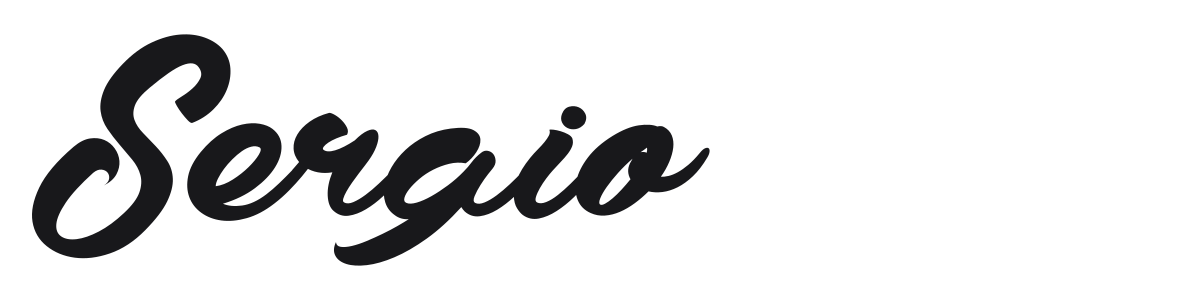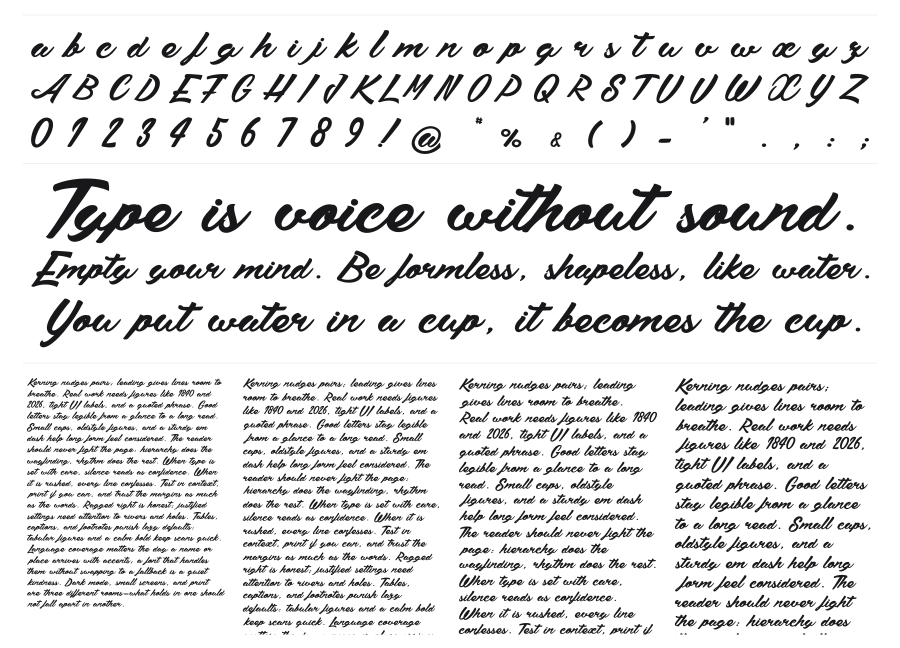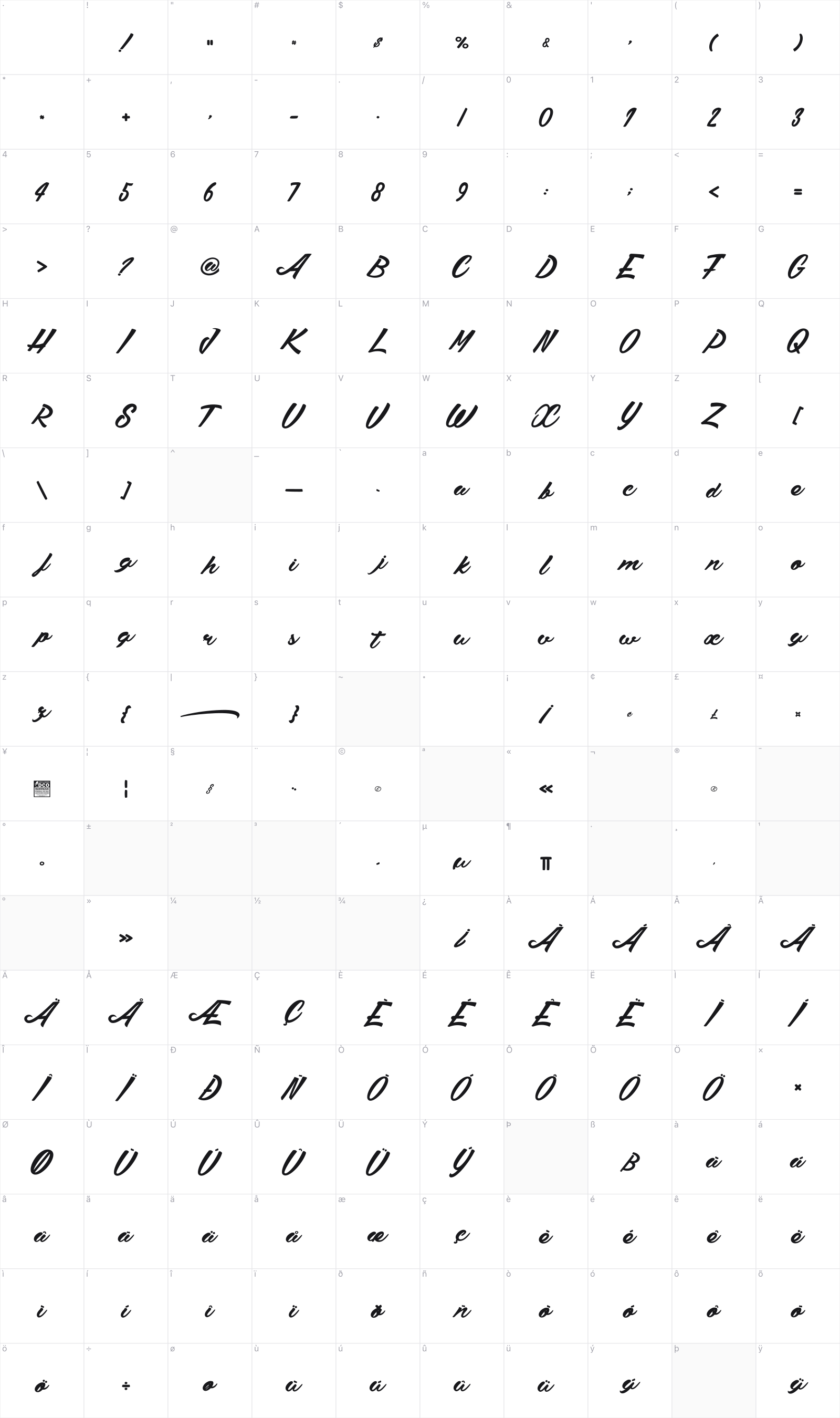
Sergio
Sergio is a bold connected brush script with a sweeping rightward lean and fluid strokes that feel drawn in a single confident motion. The generous loops and linked characters give it a natural hand-lettered warmth without sacrificing legibility at large sizes. It carries the casual energy of mid-century American lettering, at home on anything from cafe signage to apparel graphics.